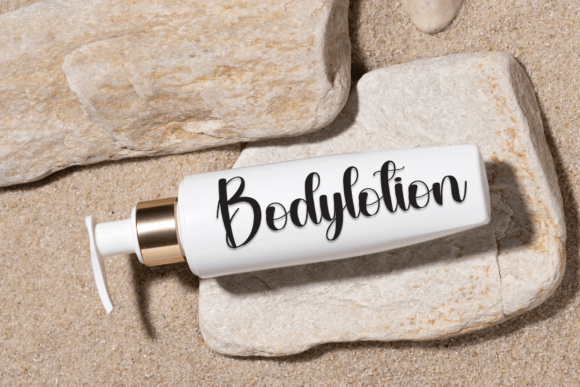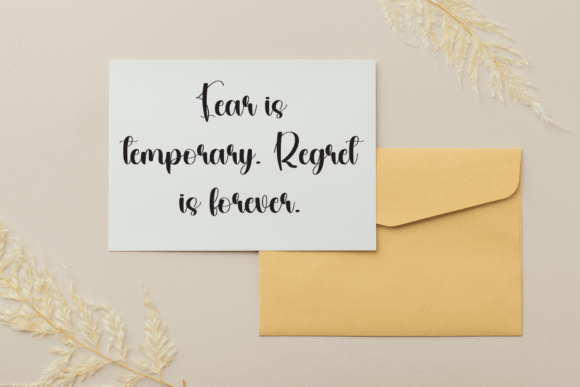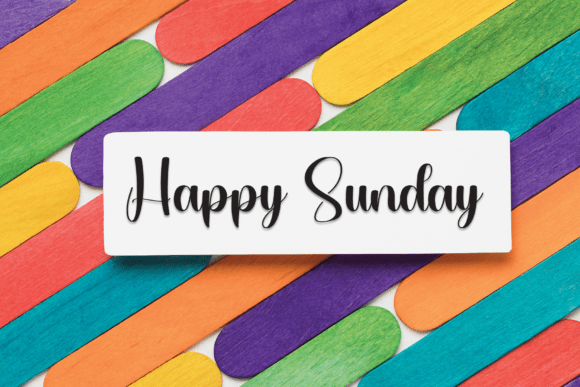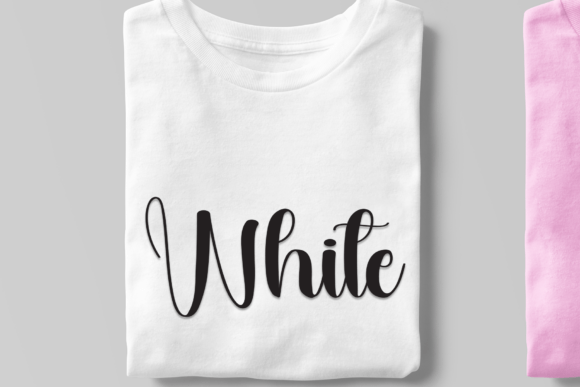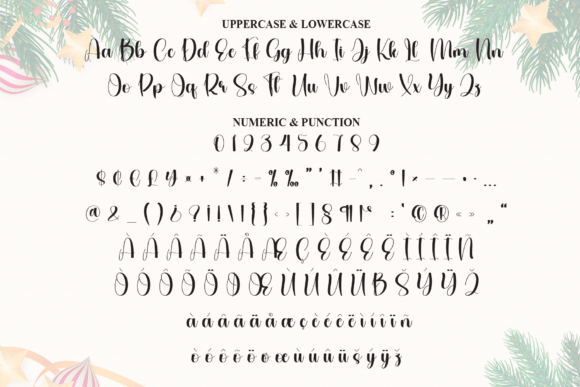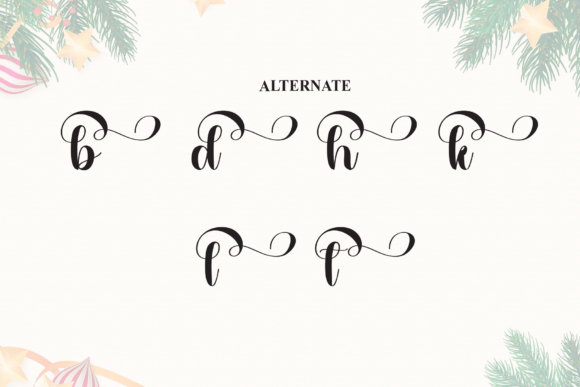
Introducing Christmas Font: The Ultimate Holiday Design Companion
As the holiday season approaches, designers and crafters are on the lookout for the perfect typography to add a touch of magic to their creations. Look no further than Christmas Font, a festive and playful handwritten font designed to bring warmth and joy to your holiday designs. With its bouncy curves and elegant swashes, this font is sure to become your go-to for all your Christmas design needs.
The Perfect Blend of Whimsy and Elegance
Christmas Font is a masterful blend of whimsy and elegance, making it perfect for a wide range of holiday designs. Its bouncy curves and playful strokes evoke a sense of joy and festivity, while its elegant swashes add a touch of sophistication and refinement. Whether you’re designing Christmas cards, gift tags, seasonal banners, or party invitations, this font is sure to add a touch of magic to your creations.
One of the best things about Christmas Font is its versatility. Its joyful and approachable style makes it perfect for a wide range of design applications, from traditional Christmas cards and gift tags to more modern designs like holiday-themed social media graphics and party invitations. The font’s playful curves and elegant swashes also make it a great match for illustrations, adding an extra layer of whimsy and fun to your designs.
Pairing Suggestions for a Perfectly Cheerful Aesthetic
To get the most out of Christmas Font, try pairing it with classic holiday colors like red and green. The font’s playful curves and elegant swashes look stunning against a bold red or green background, creating a perfectly cheerful aesthetic that’s sure to get you in the holiday spirit. You can also pair the font with illustrations, like snowflakes, holly, or Christmas trees, to add an extra layer of whimsy and fun to your designs.
Why Designers and Crafters Love Christmas Font
So why do designers and crafters love Christmas Font? For starters, its unique blend of whimsy and elegance makes it a standout from more traditional holiday fonts. The font’s playful curves and elegant swashes also make it incredibly versatile, allowing you to use it for a wide range of design applications. Plus, its joyful and approachable style is sure to bring a smile to your face, making it the perfect choice for holiday designs that need a little extra magic.
Tips for Getting the Most Out of Christmas Font
To get the most out of Christmas Font, try experimenting with different design applications and pairing options. Here are a few tips to get you started:
- Use Christmas Font for Christmas cards, gift tags, and other holiday stationery to add a touch of magic to your correspondence.
- Pair the font with illustrations, like snowflakes or holly, to add an extra layer of whimsy and fun to your designs.
- Experiment with different color palettes, like classic red and green or more modern winter wonderland-inspired hues.
- Use the font’s elegant swashes to add a touch of sophistication and refinement to your designs.
Christmas Font is the ultimate holiday design companion, offering a unique blend of whimsy and elegance that’s perfect for a wide range of design applications. With its playful curves and elegant swashes, this font is sure to add a touch of magic to your holiday designs. Whether you’re a designer or crafter, Christmas Font is the perfect choice for adding a little extra joy and festivity to your creations. So why wait? Download Christmas Font today and start creating your own magical holiday designs!